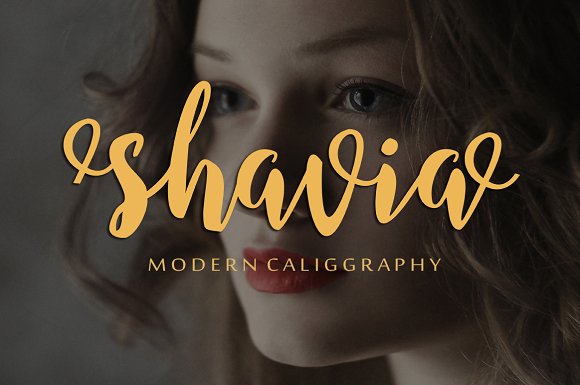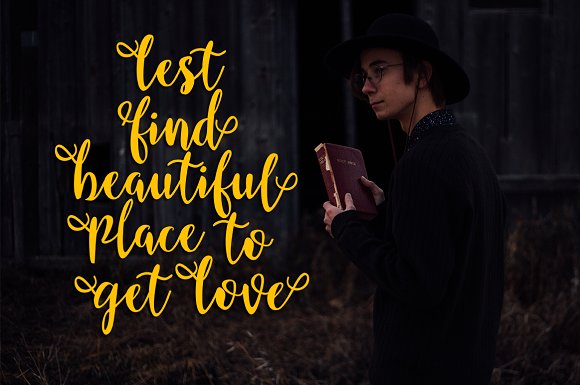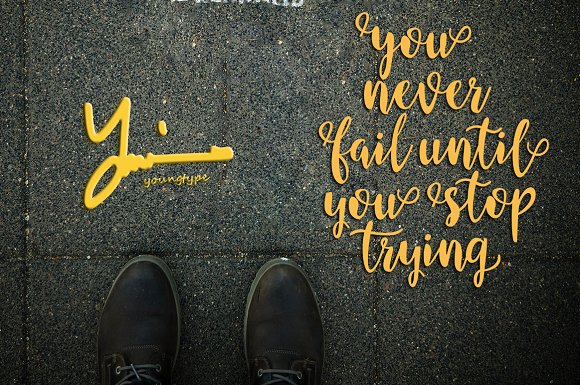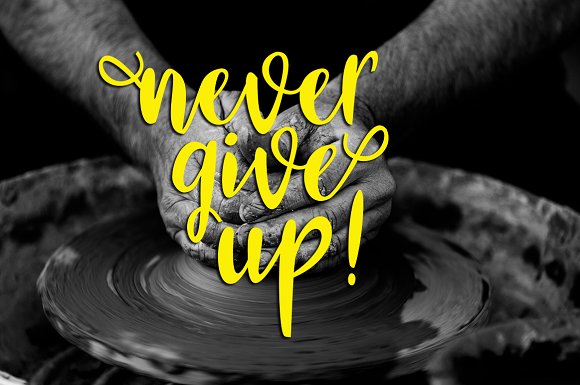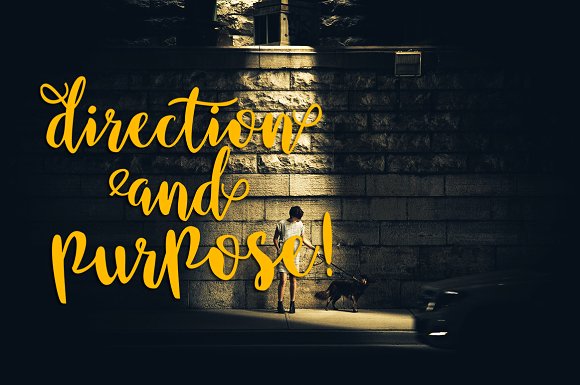
Shavia Script Font
Shavia Script is a modern calligraphy, organic, dynamic and energetic sytle.Can used for various purposes. such as the title, signature, logo, correspondence, wedding invitations, letterhead, signage, labels, newsletters, posters, badges, etc.